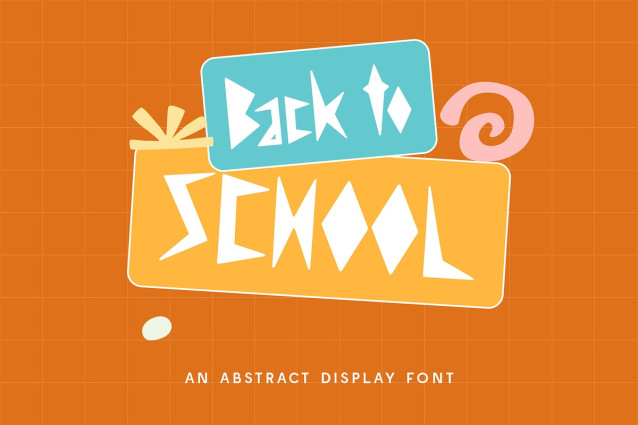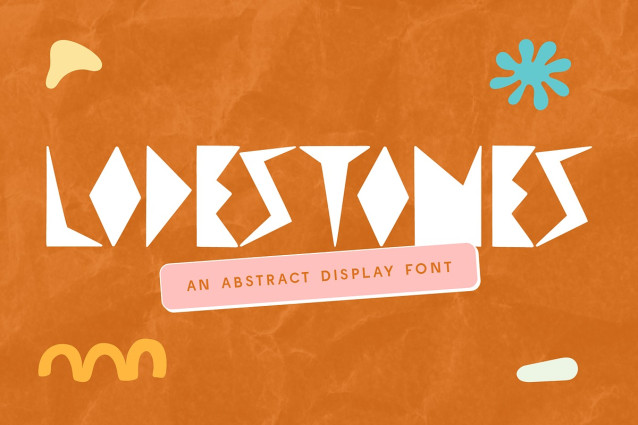
CF Lodestones Font
CF Lodestones Font – an abstract display font that defies convention and dances to its own rhythm. With sharp angles, offbeat symmetry, and daring cuts, this font is a magnetic force of creativity that pulls the eye and sparks curiosity. Lodestones is all about unexpected shapes and playful impact. Its geometric flair and abstract essence make it the perfect choice for creative posters, funky branding, zines, kids’ projects, editorial headlines, or anything that needs a bold statement.